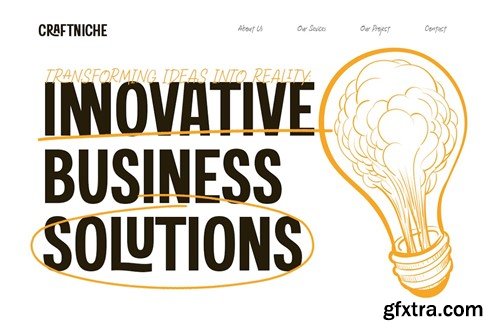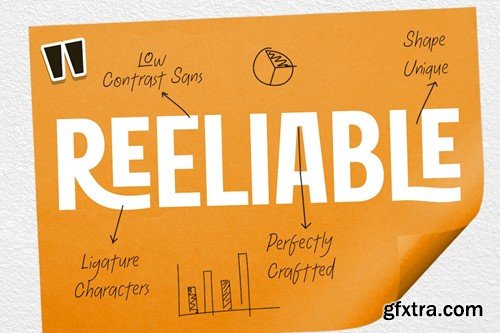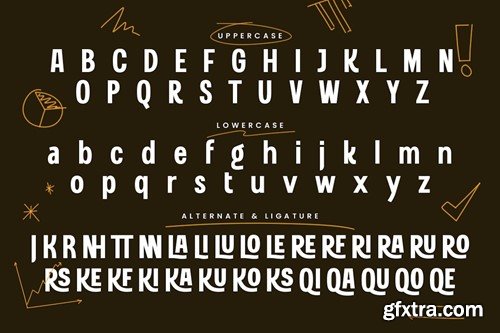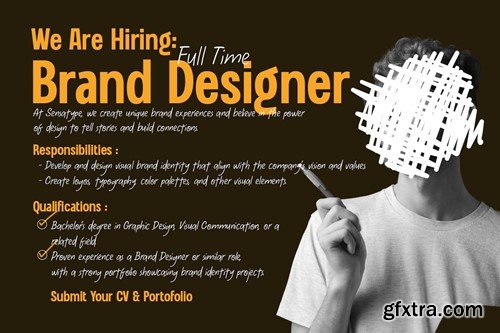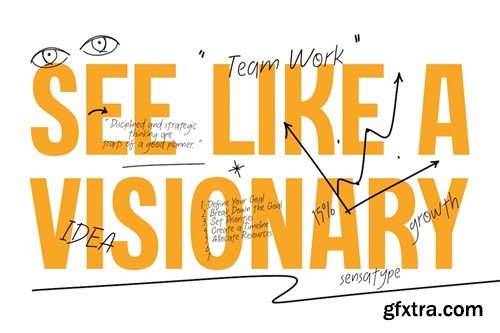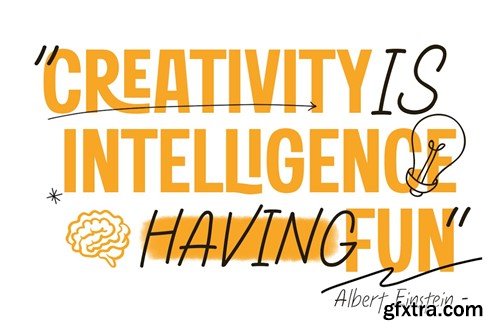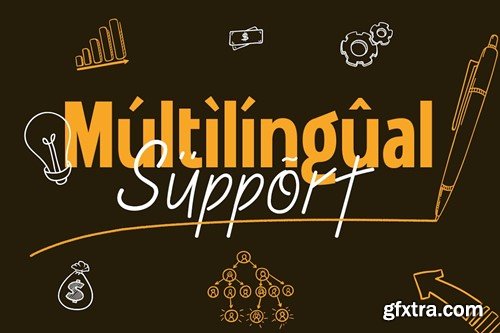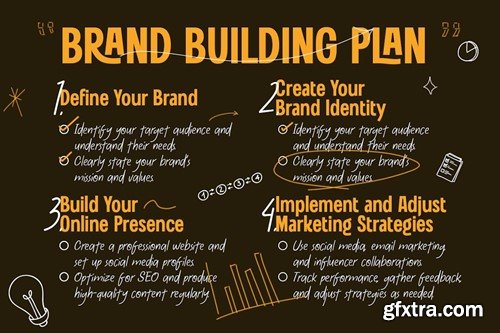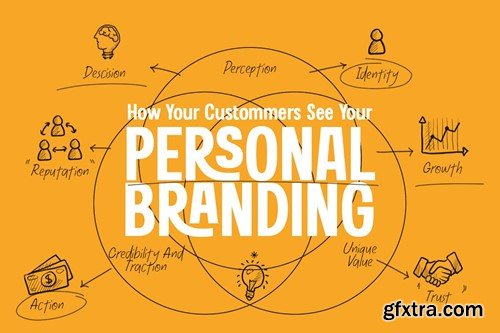
Dream Planner is a beautifully crafted font that merges the elegance of handwritten script with the clean lines of a sans serif draft. Created to inspire creativity, Dream Planner is perfect for planners, journals, and all kinds of digital and print projects. This font brings a personal touch to your designs, making them stand out with its unique character and style. The story of Dream Planner began with the idea of creating a font that could seamlessly blend the organic feel of handwriting with the modernity of sans serif. The result is a font that feels both personal and professional, ideal for branding, social media graphics, and more. Dream Planner's versatility makes it an excellent choice for designers who want to add a touch of personality to their projects without sacrificing readability and professionalism. Dream Planner offers a comprehensive set of features to support your design needs. With both sans serif and handwritten styles included, it provides a wide range of unique characters to enhance your work. It includes punctuation, numbers, and symbols, as well as both uppercase and lowercase letters. Supporting multiple languages, Dream Planner is versatile for global use and available in various file formats for seamless integration into your design workflow. Dream Planner Handwritten & Sans Draft Font Features: Thank you and best of luck with your designs!